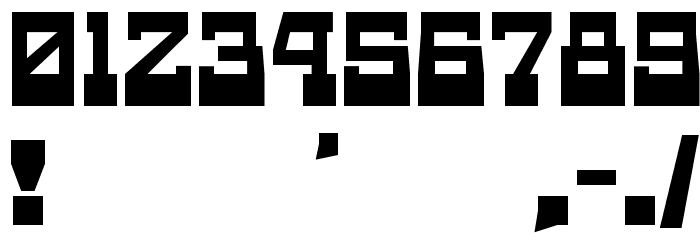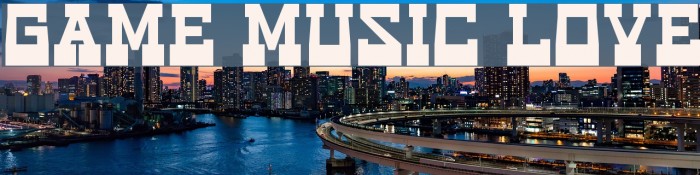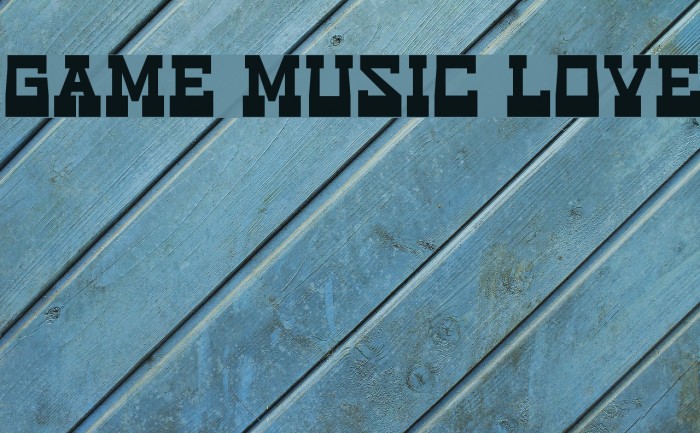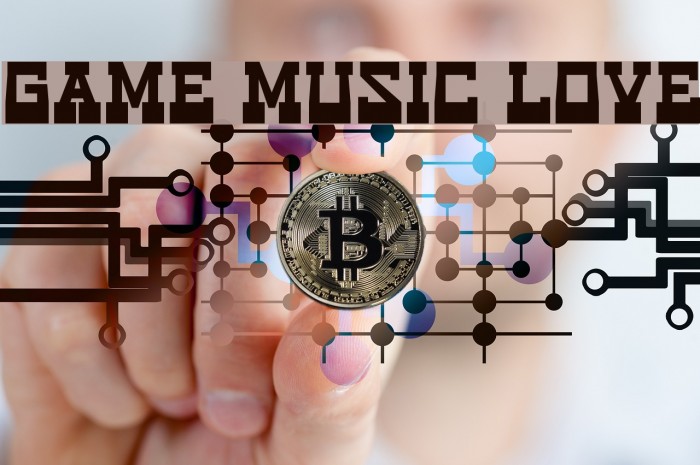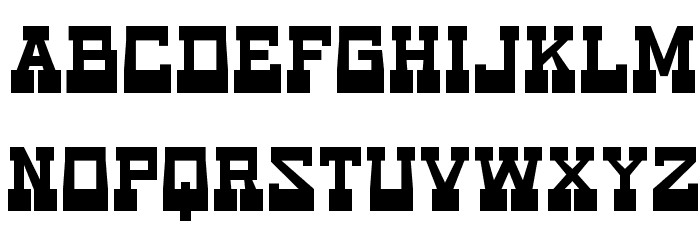
Game Music Love Font
This font features a bold, geometric design with strong, angular lines and a blocky appearance. The uppercase letters are particularly striking, with a consistent height and width that gives them a uniform, impactful look. The lowercase letters maintain the same boldness, ensuring readability while retaining the font's distinctive style. Numbers and special characters are crafted with the same attention to detail, making them stand out with their robust and solid form. The overall design is reminiscent of retro gaming or digital aesthetics, making it ideal for projects that require a strong visual presence.
A bold, geometric font with a retro, digital aesthetic.
• Proposed Projects: Ideal for video game titles, retro-themed posters, digital art, and branding that requires a strong, impactful look.
• Category: Decorative/Display
• Bold: Yes
• Italic: No
• Weight: Bold
• Width: Normal
• Character Spacing: Normal
• Contrast: Low
• Overall Style: Retro, Digital
• Use Case: Headlines, Logos